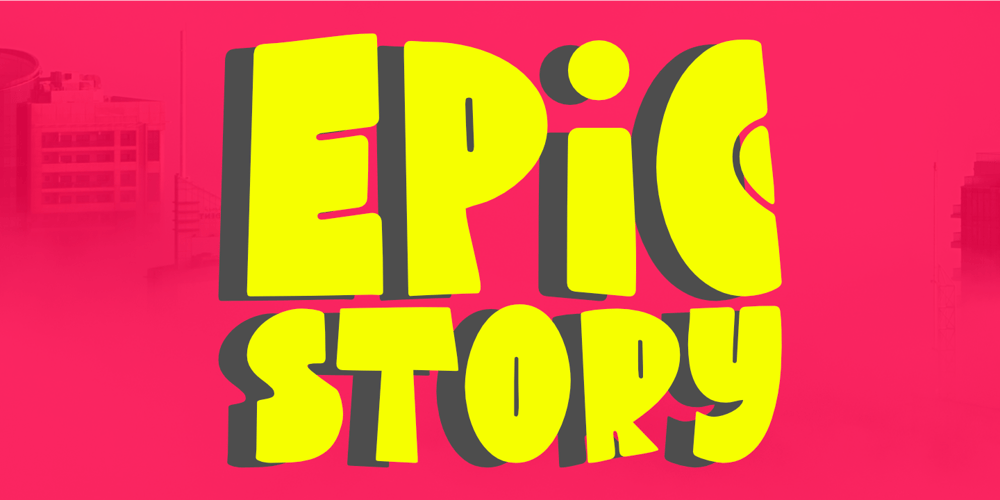
Epic Story Font Family was designed by Nurul Hidayani and published by Olivetype. Epic Story contains 1 styles and family package options. Introducing Epic Story, the perfect typeface for your next big project. This fun, playful font is the right choice for creating bold headlines. With its unique character, Epic Story is sure to make a statement. And it’s great for logotypes and branding too. So if you’re looking to add some personality to your next project, look no further than Epic Story.Epic Story font includes : Standard Latin All Caps Numbers, symbols, and punctuations Multilingual Support. Fully accessible without additional design software Simple Installations Works on PC & Mac Thank You.